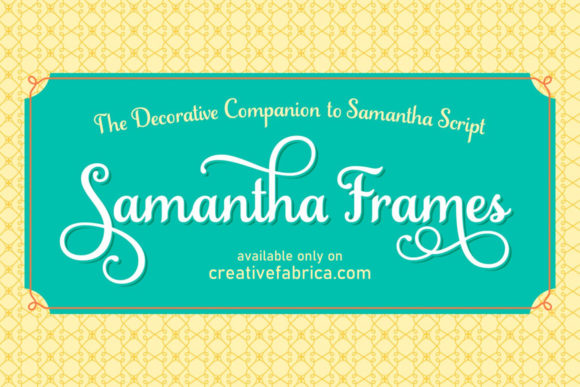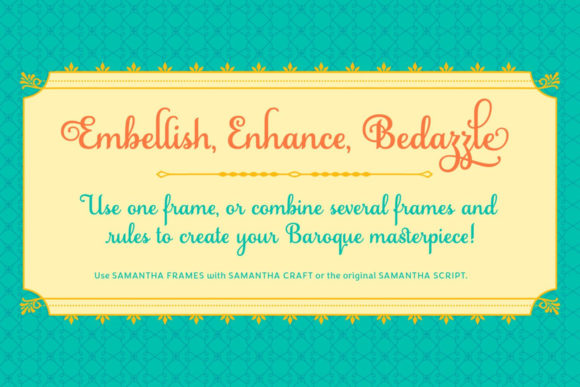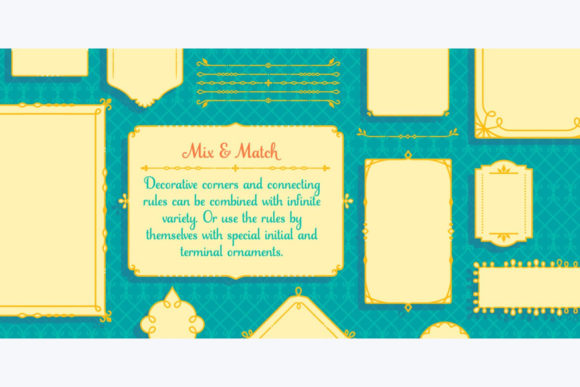
Samantha Craft Font
About Samantha Craft Font
Samantha Craft is the latest edition to the Samantha font family. It’s ideal for crafters as well as screen or print. The thin strokes are much thicker, making it easier for those with a die-cutting machine to cut out and weed as it’s not as delicate as the other versions. It’s great for screen purposes too, as it’s very legible when used small.
When purchasing Samantha Craft, you’ll also receive a beautiful set of Samantha Frames.